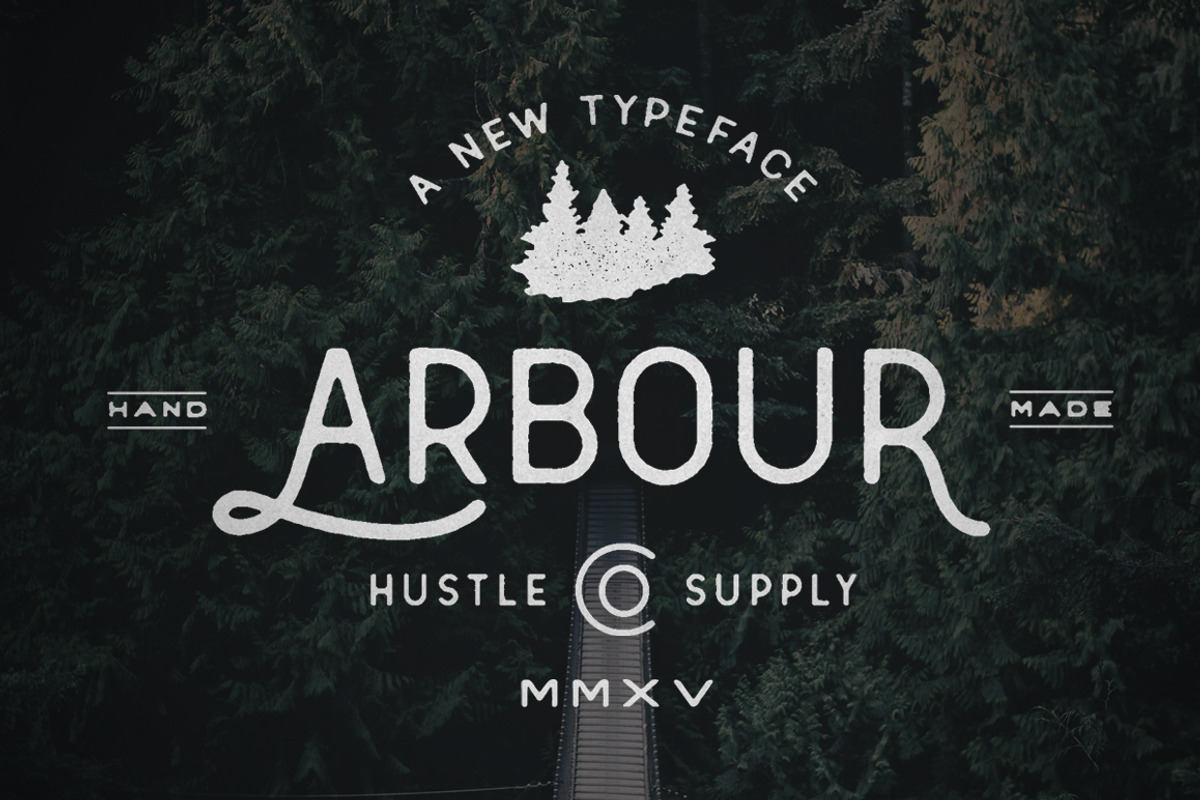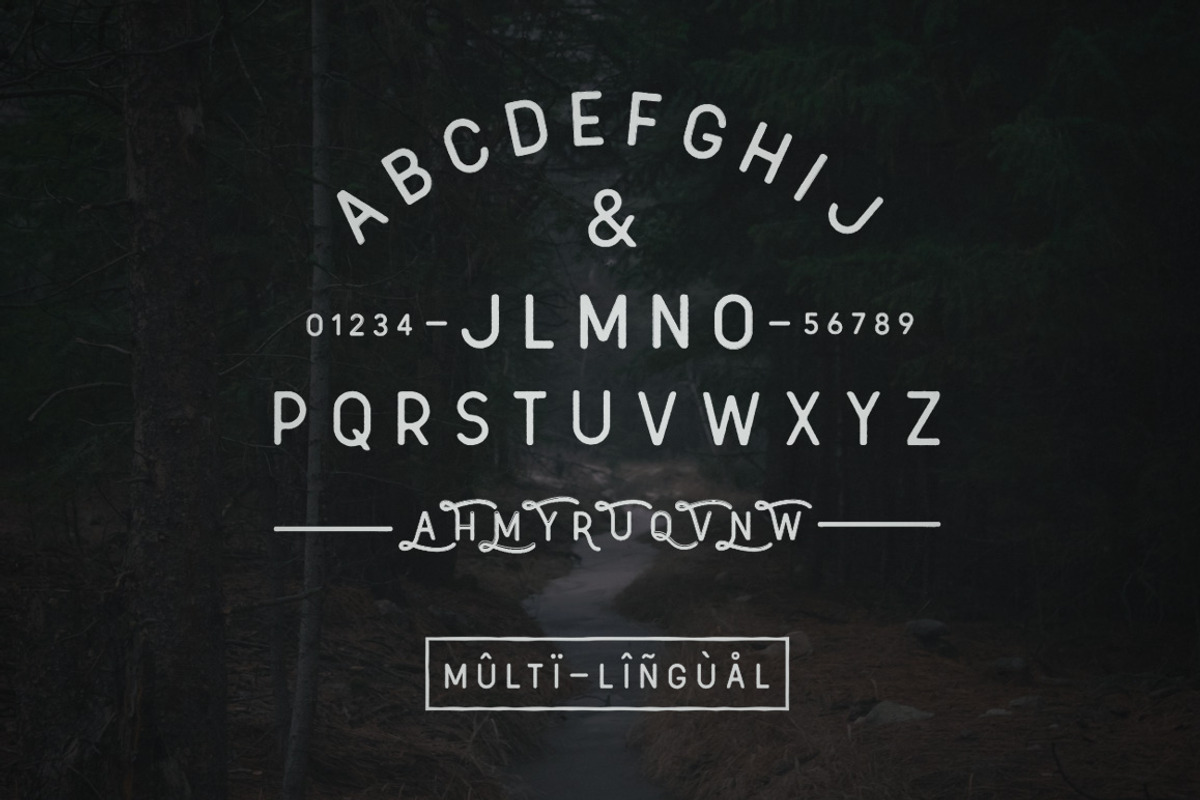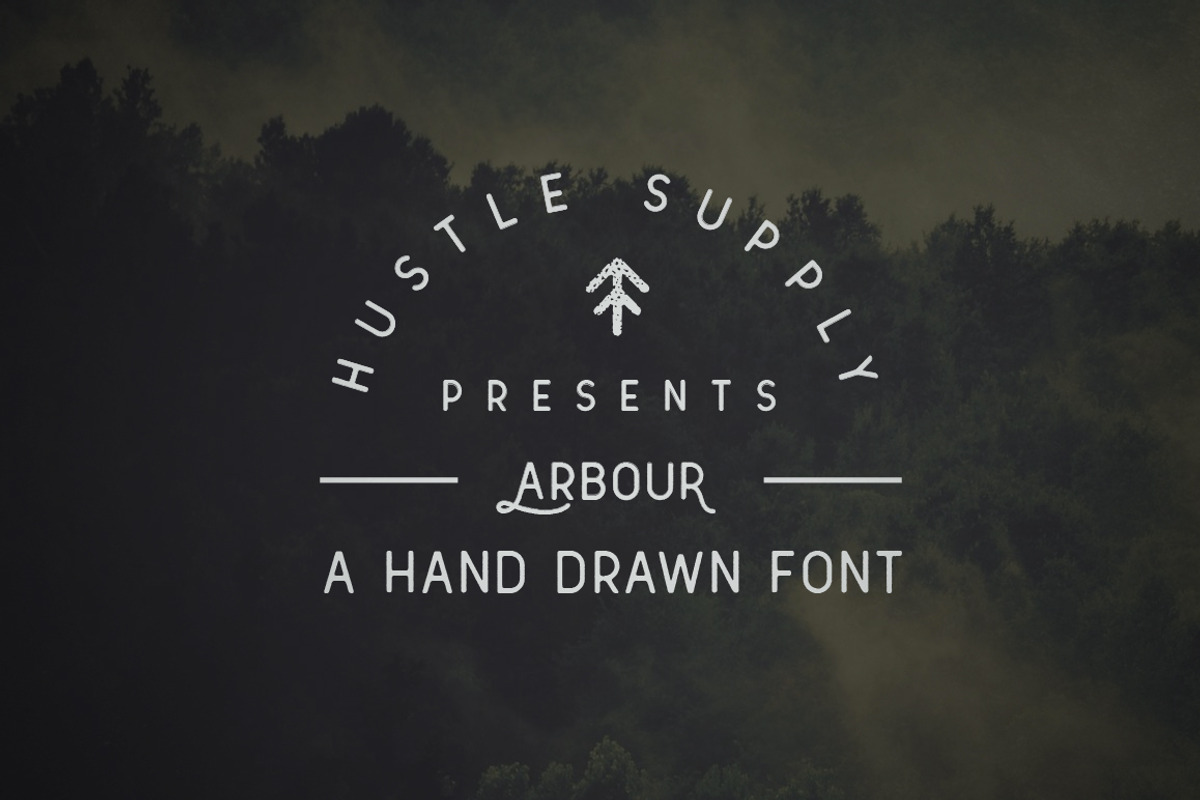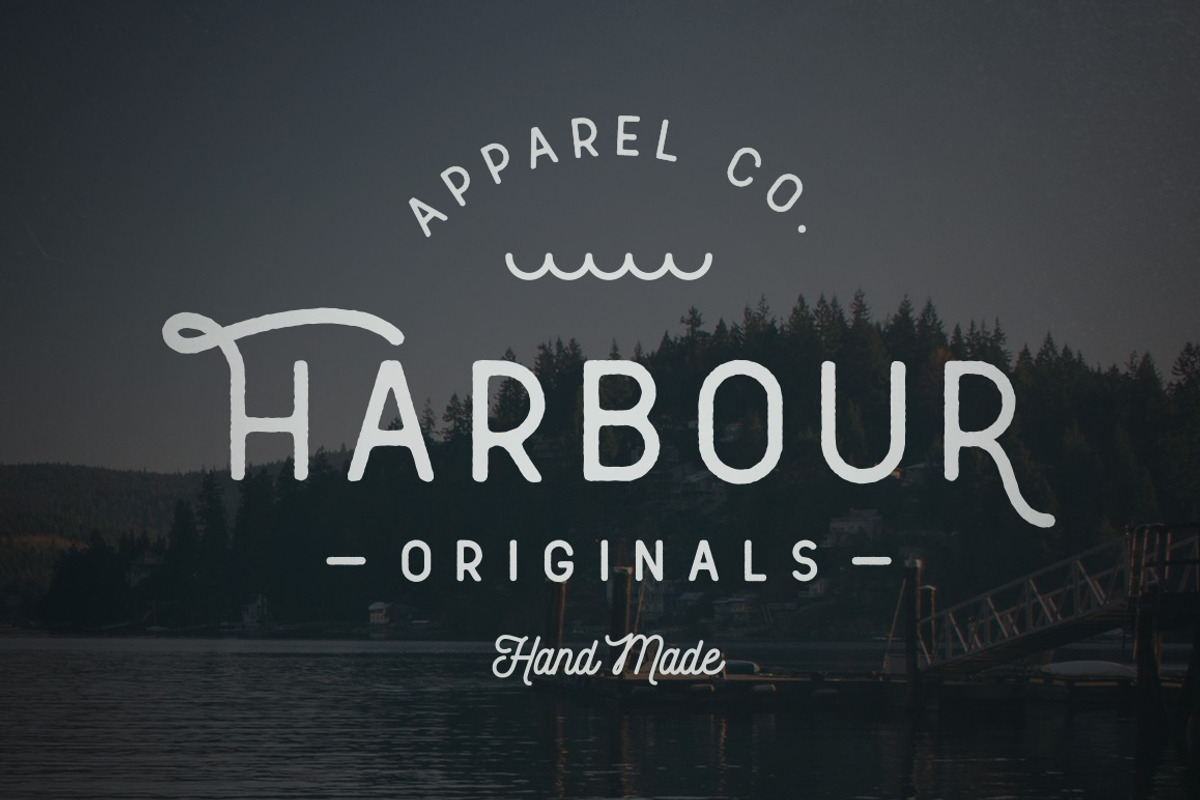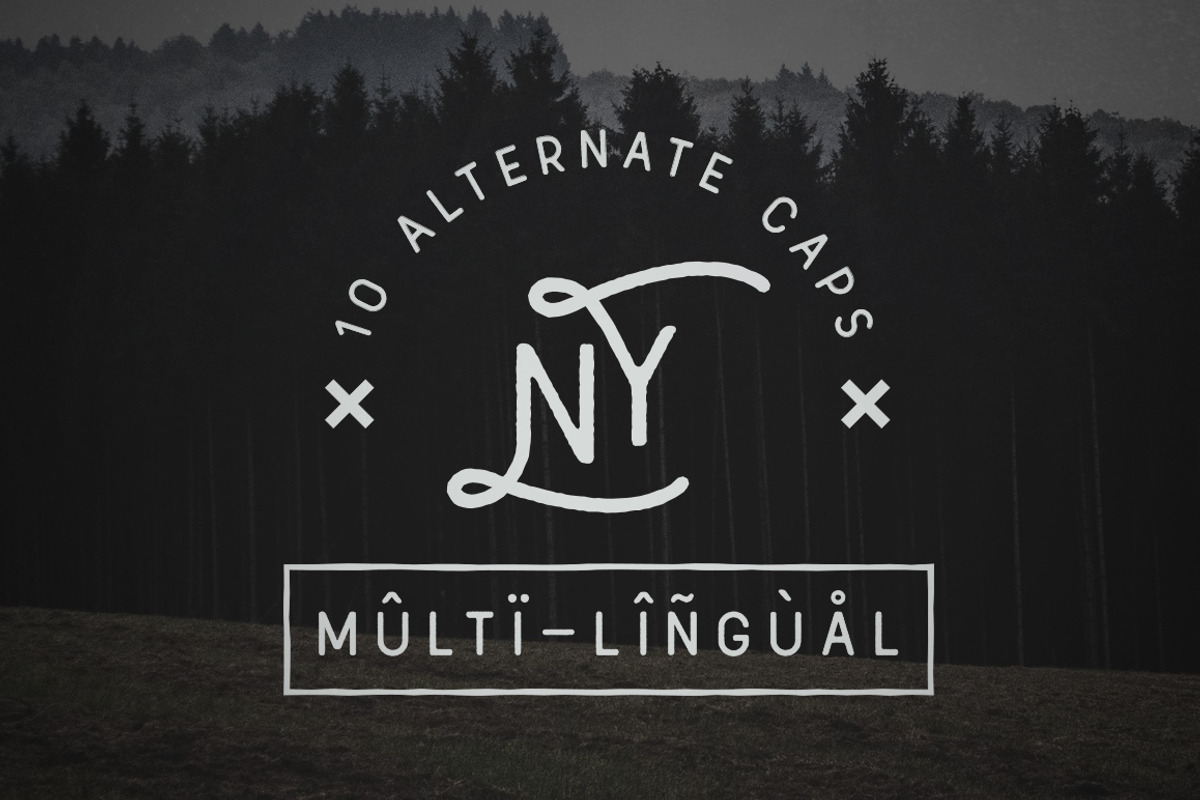
Arbour - Hand Drawn Font
Arbour - Hand Drawn Font by Hustle Supply Co. is a font selected for branding, posters, packaging, typography.
- Includes 10 Alternate Capital letters containing swashes so that you have more options.
- This typeface is Multi-Lingual and contains Western European Characters.
- It also comes with an Oblique version so that you can pair the 2 for great combinations.
Why Arbour - Hand Drawn Font is worth a look
Arbour - Hand Drawn Font by Hustle Supply Co. fits naturally into Branding, posters, packaging, typography.